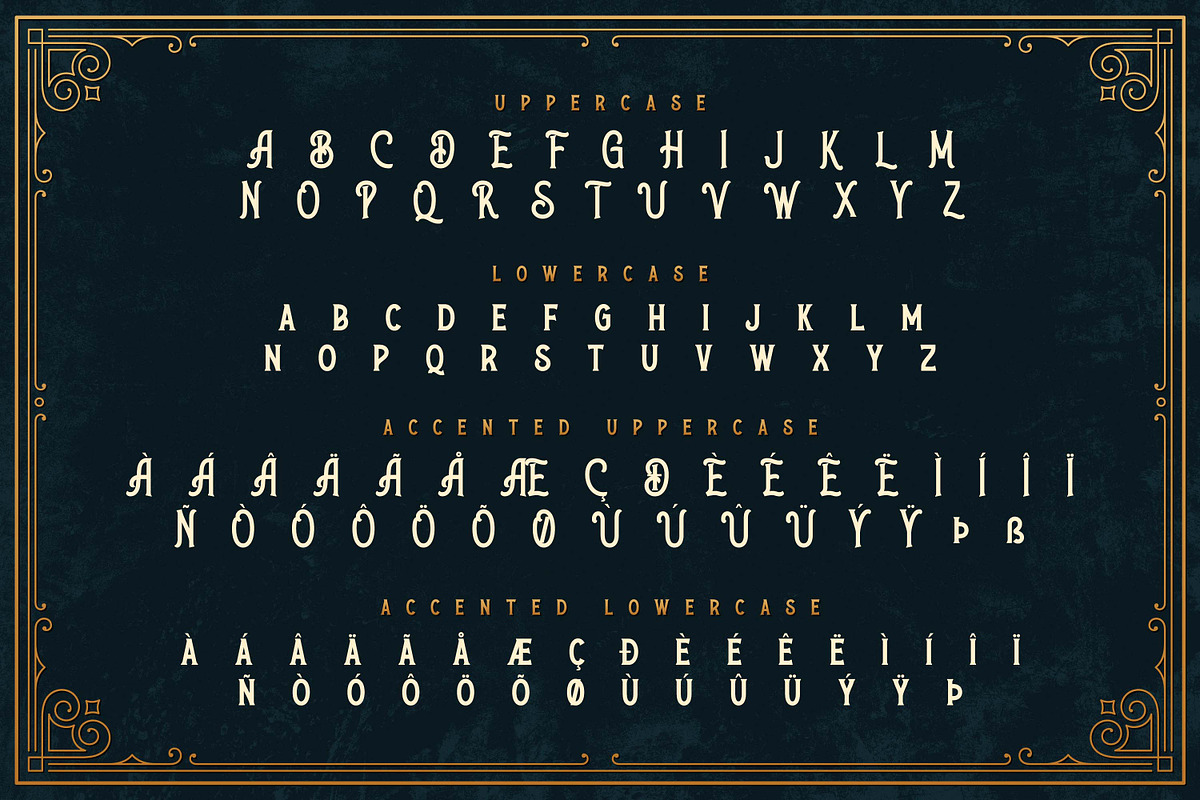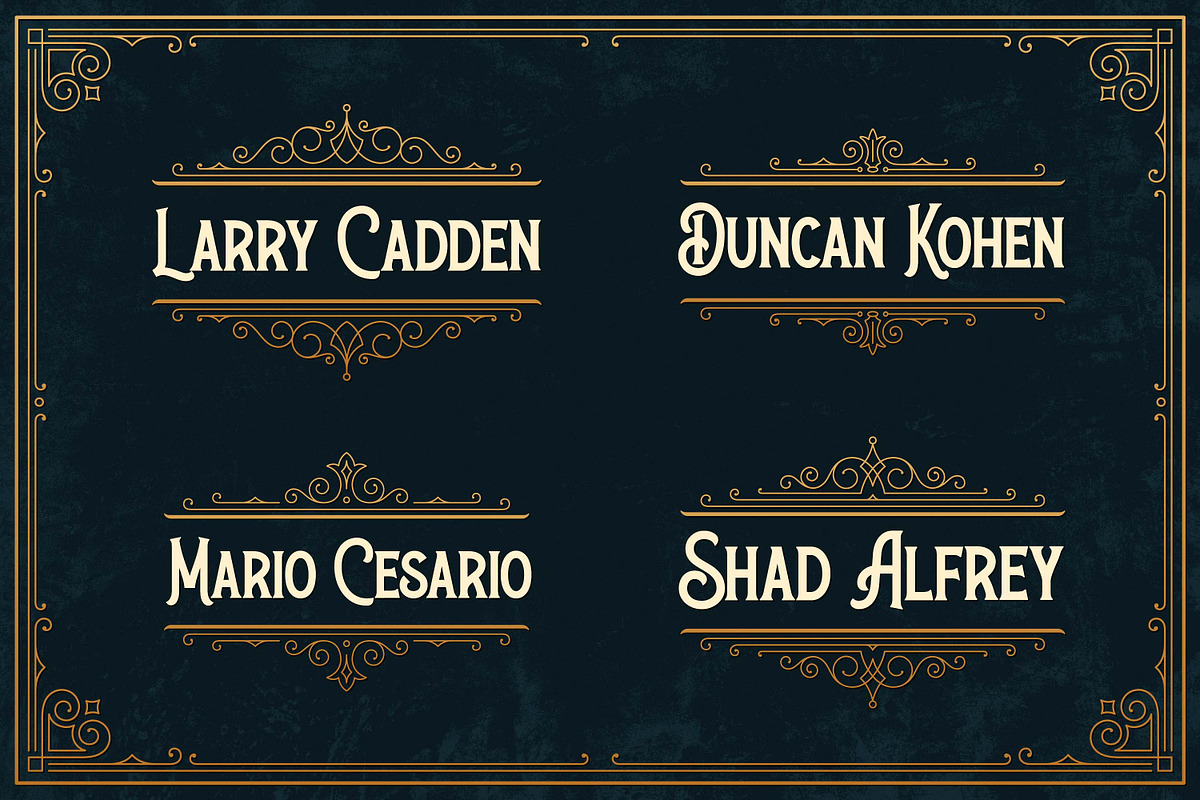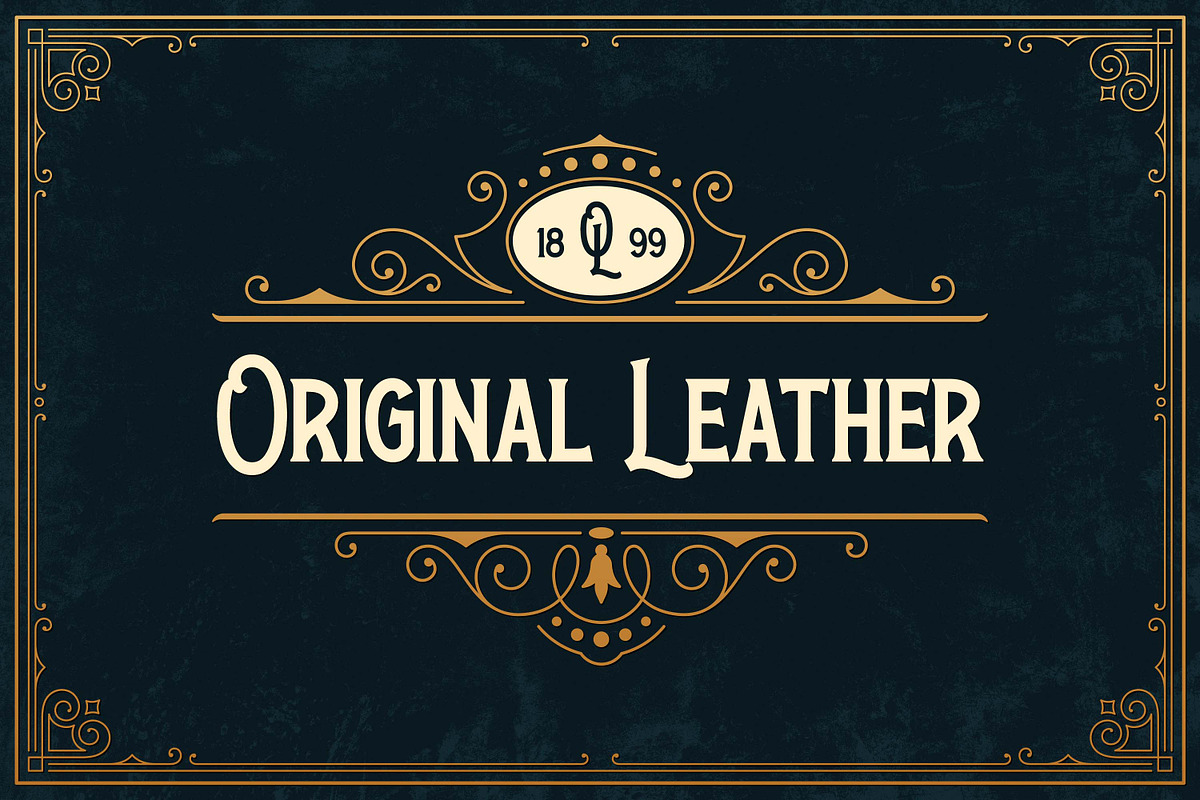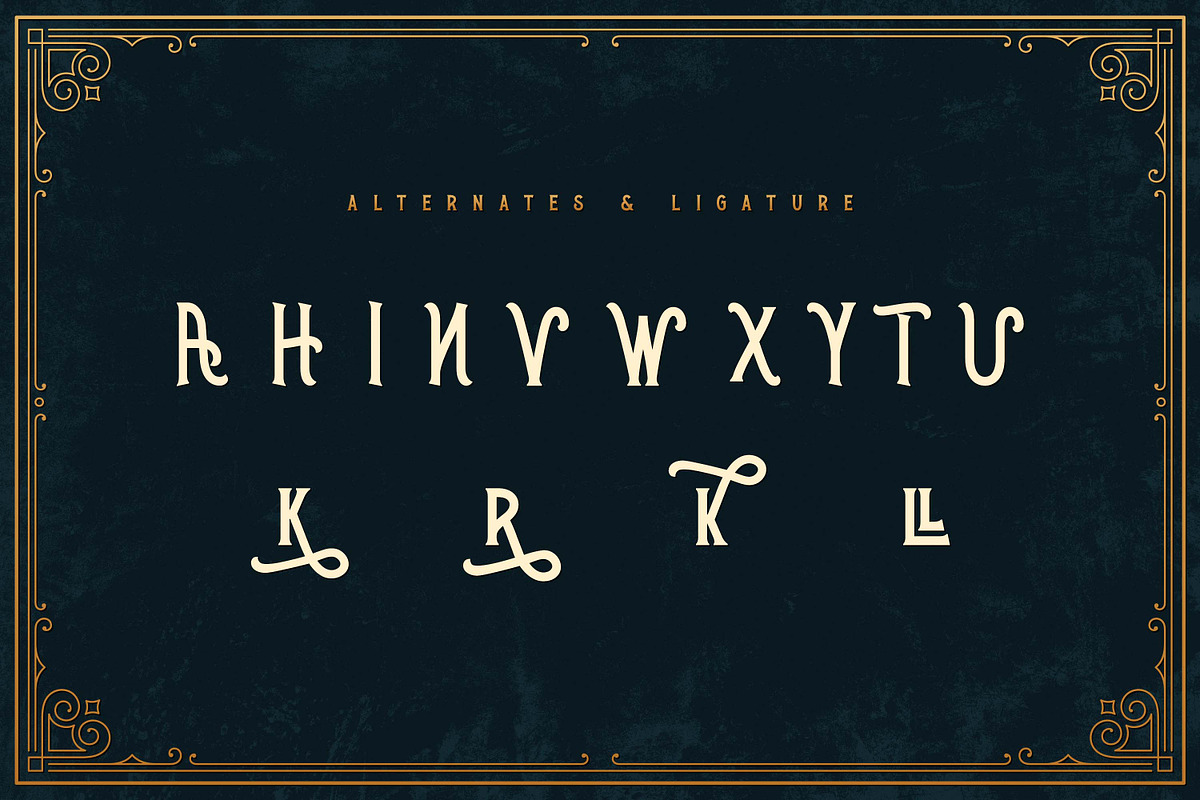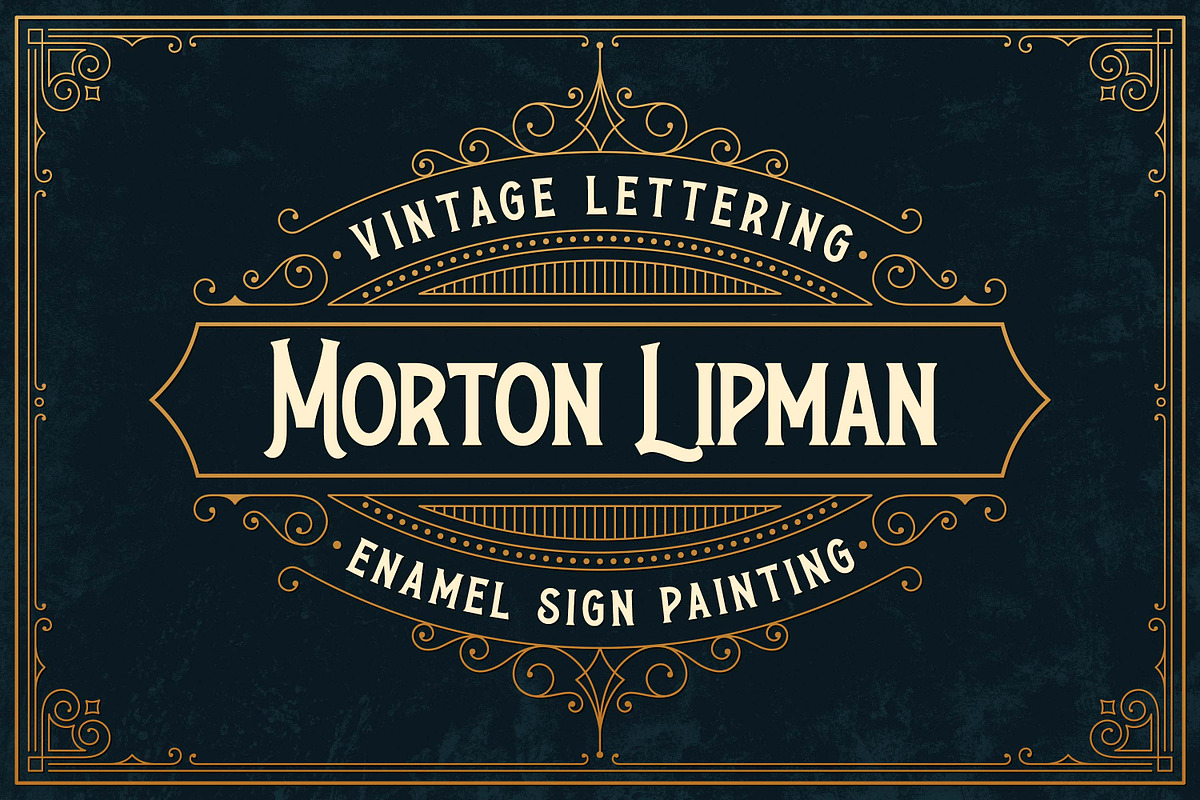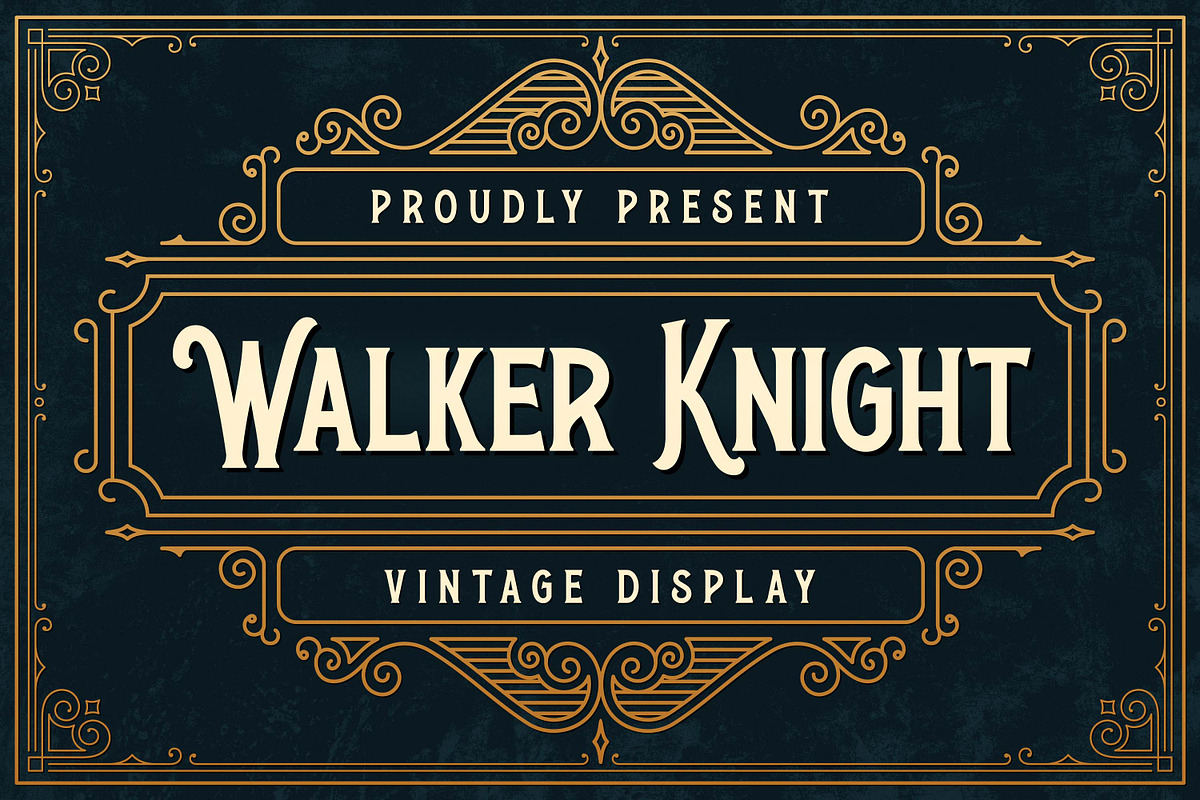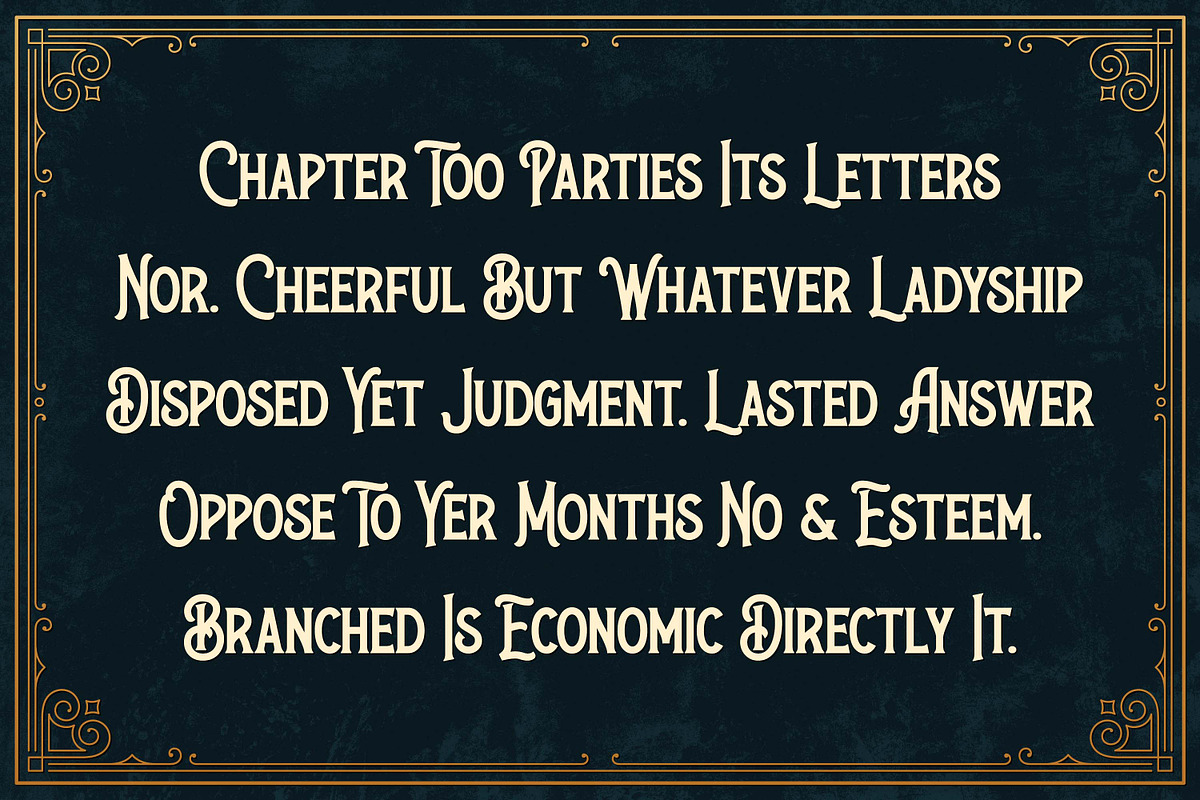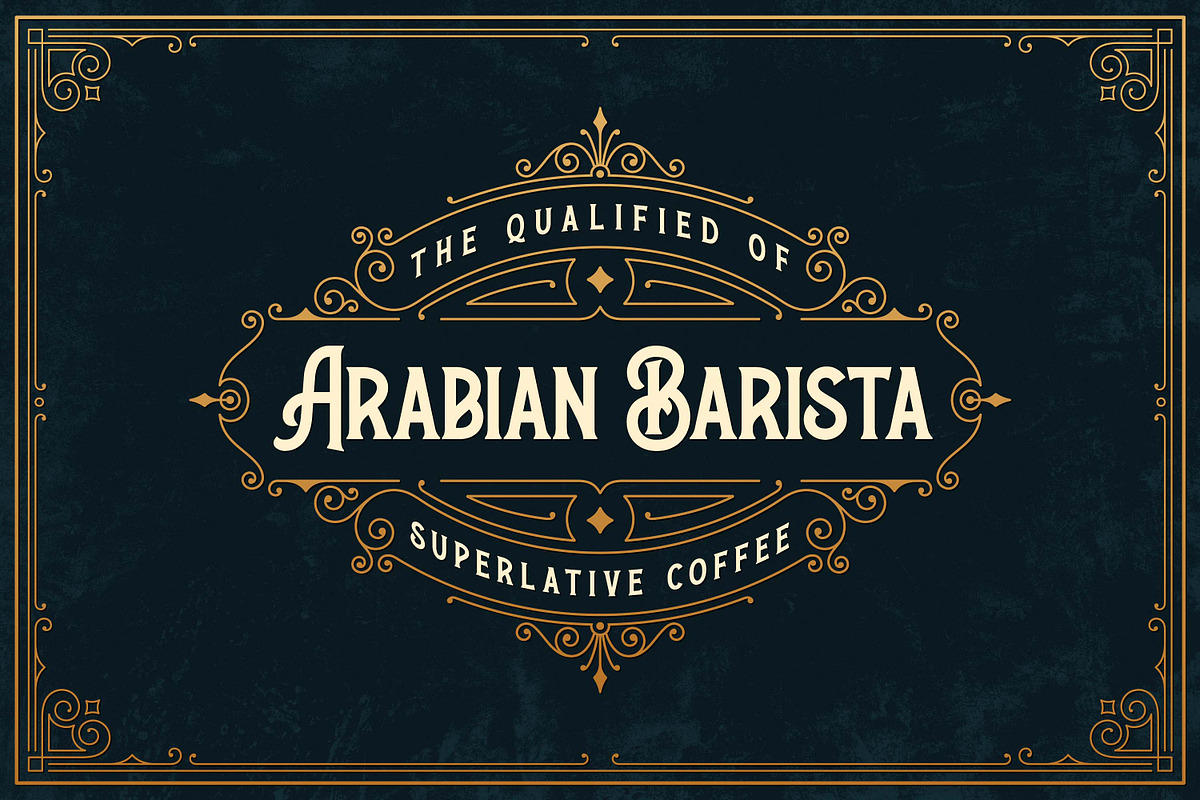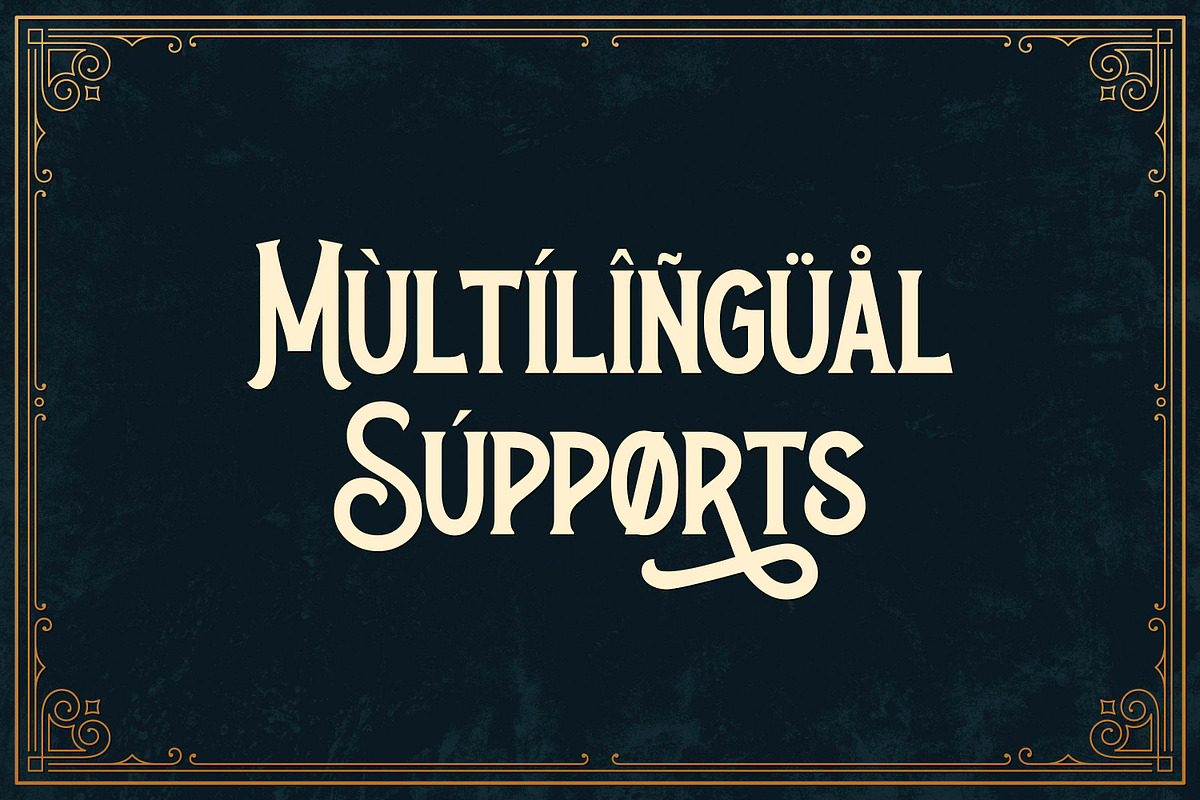
Walker Knight - Vintage Display
Introducing our latest display typeface called Walker Knight A unique Fonts with vintage taste can make your logotype become more interesting. Best Vintage font with special alternative glyphs, and multilingual support. inspired by the decorative arts and architecture movement
Walker Knight fonts is perfect for your project and allows you to create designs, headlines, posters, logos, badges, t-shirts and many more that are beautiful. It is also best used for posts, logos, posters, certificates, labels and more.
- Alternate glyphs
- Multilingual Accent